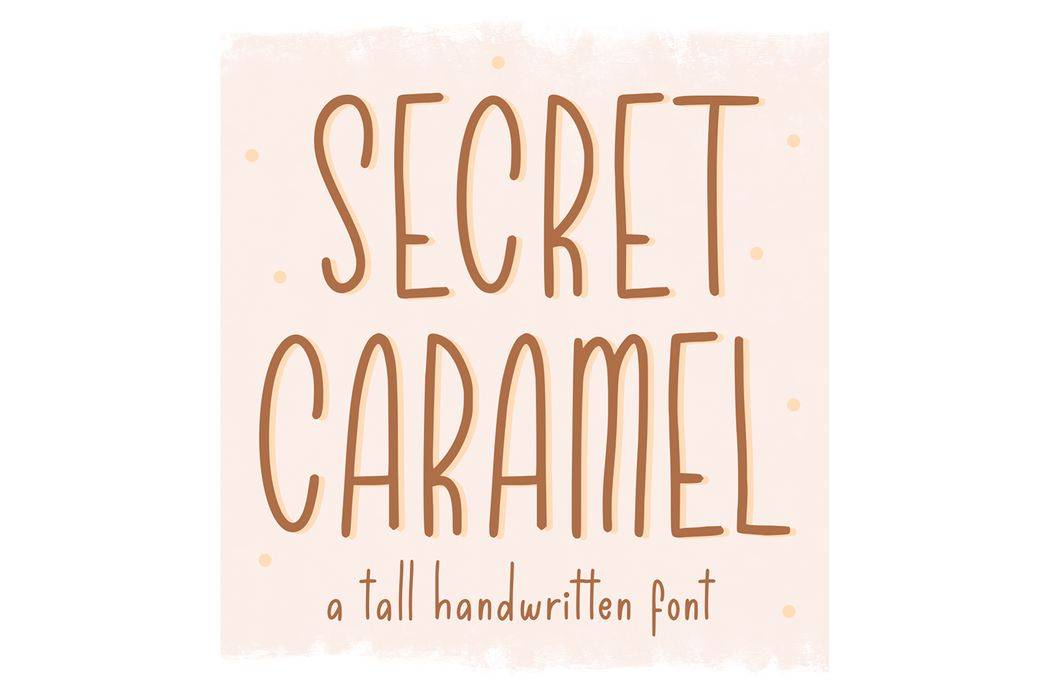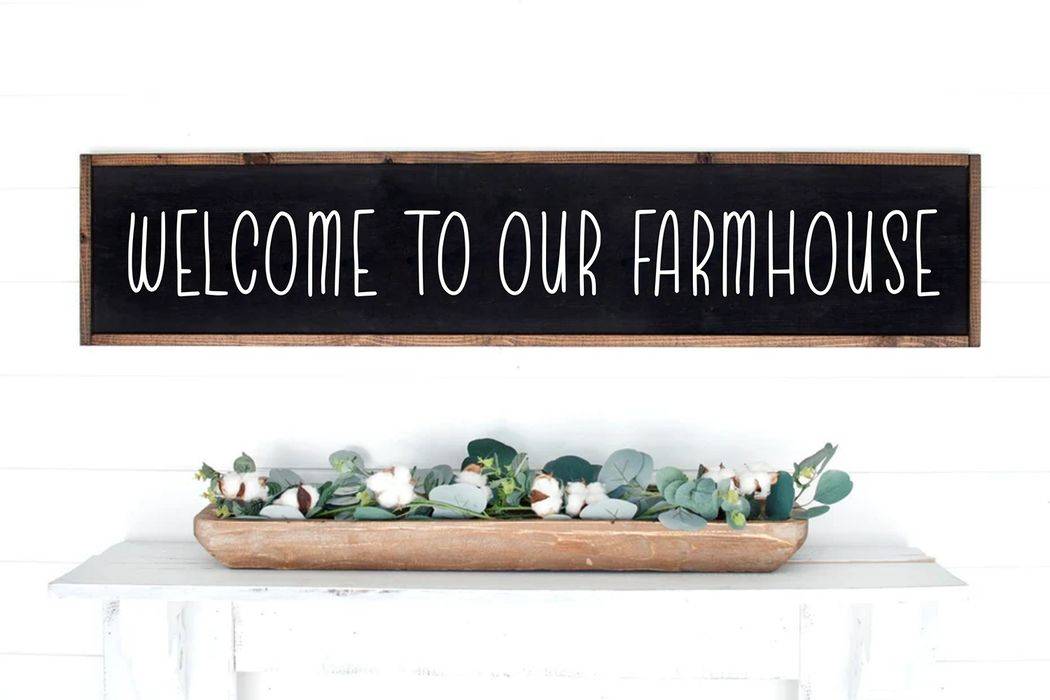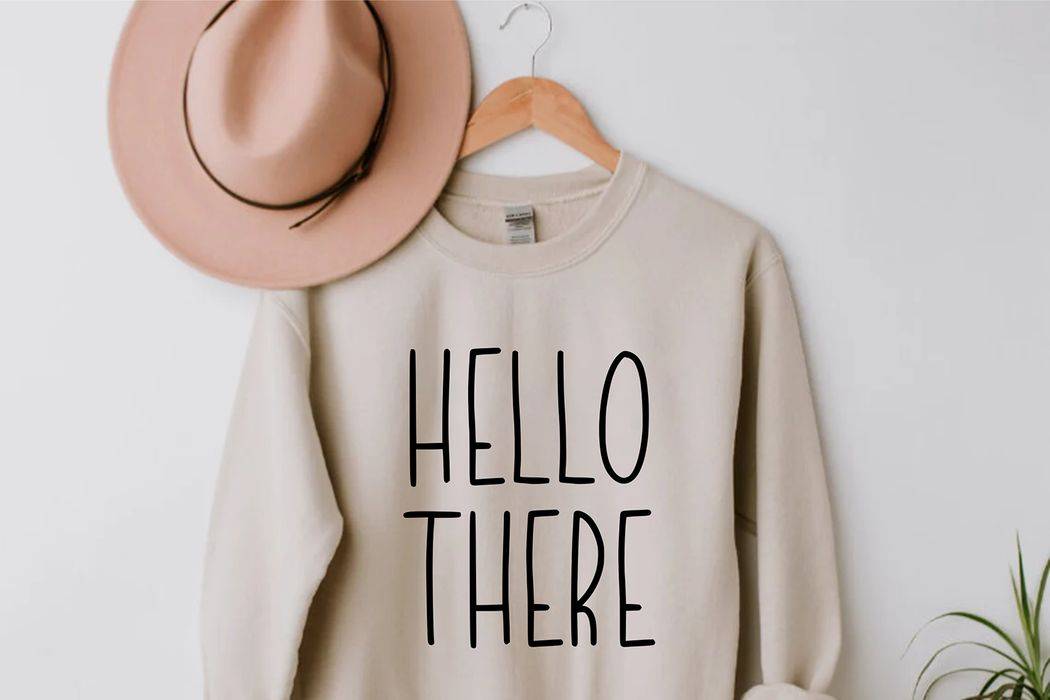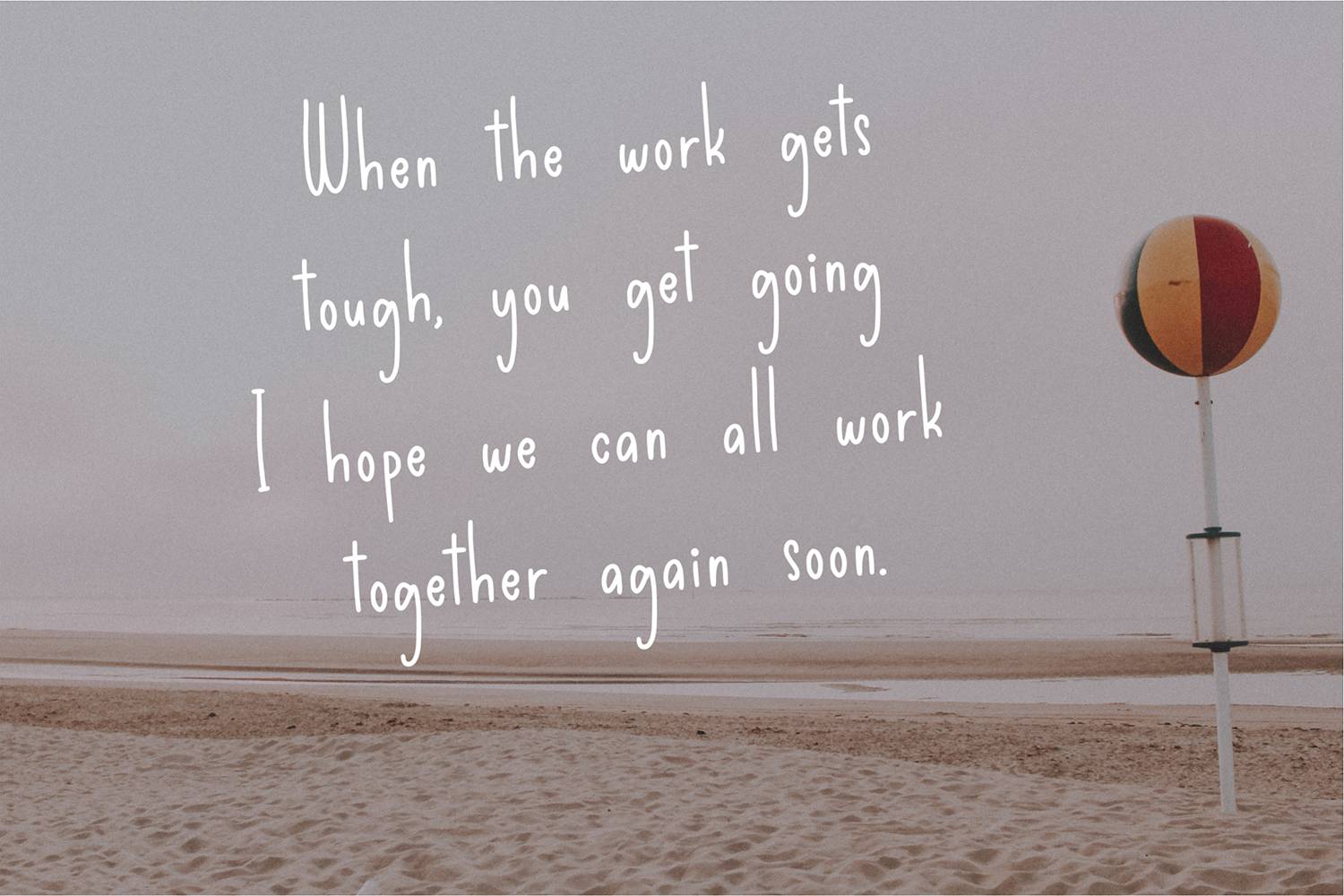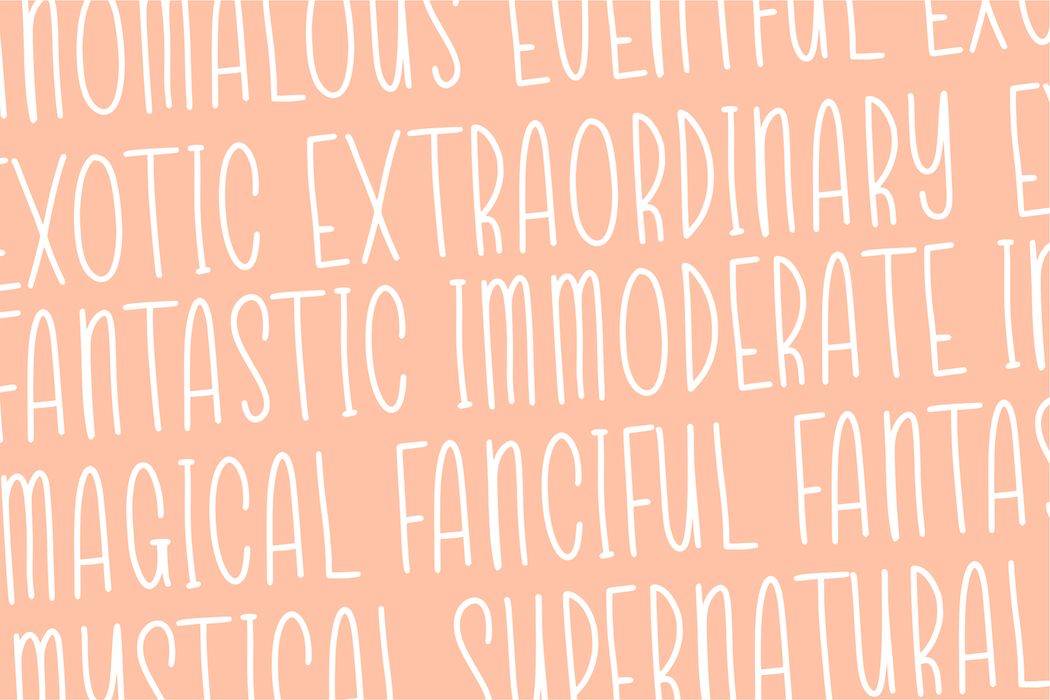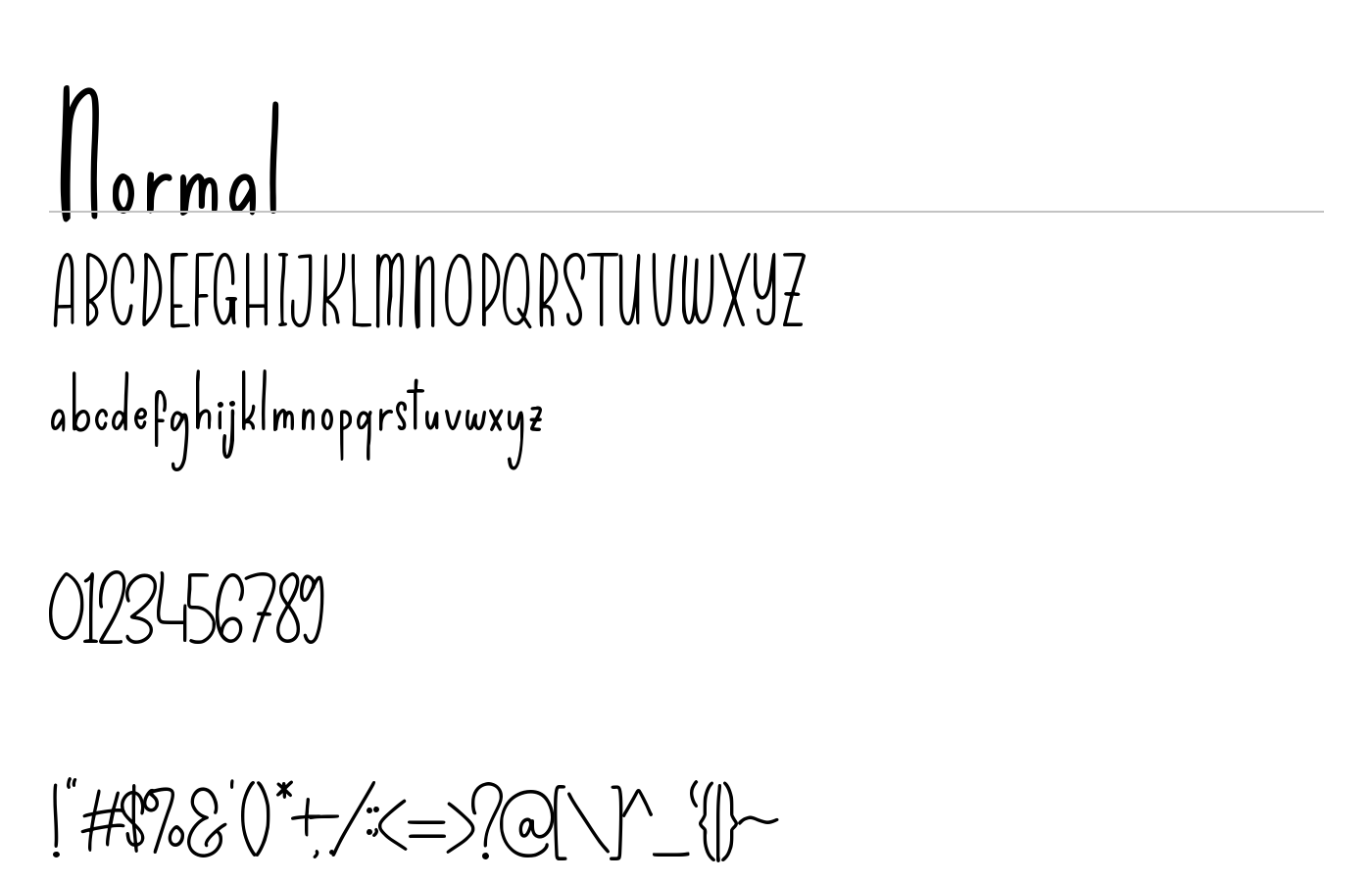
Secret Caramel is a playful, tall, and narrow handwritten sans serif font with a light weight and a casual, quirky personality. Its thin strokes and uneven letterforms give it a friendly and informal feel, making it perfect for creative projects, children’s designs, or any context where a charming, approachable style is desired. This font works well for headlines, logos, and packaging that aim to convey a sense of fun and individuality.
Secret Caramel Font
About Secret Caramel Font